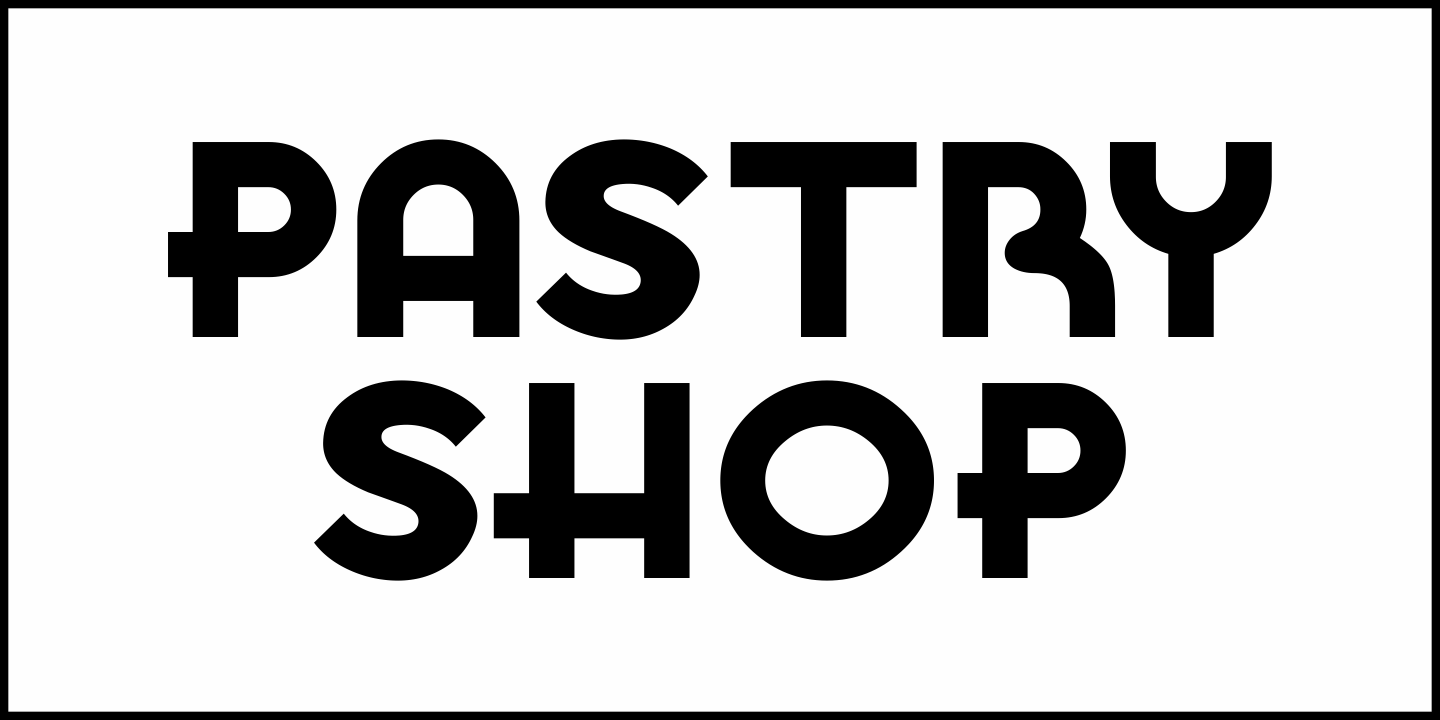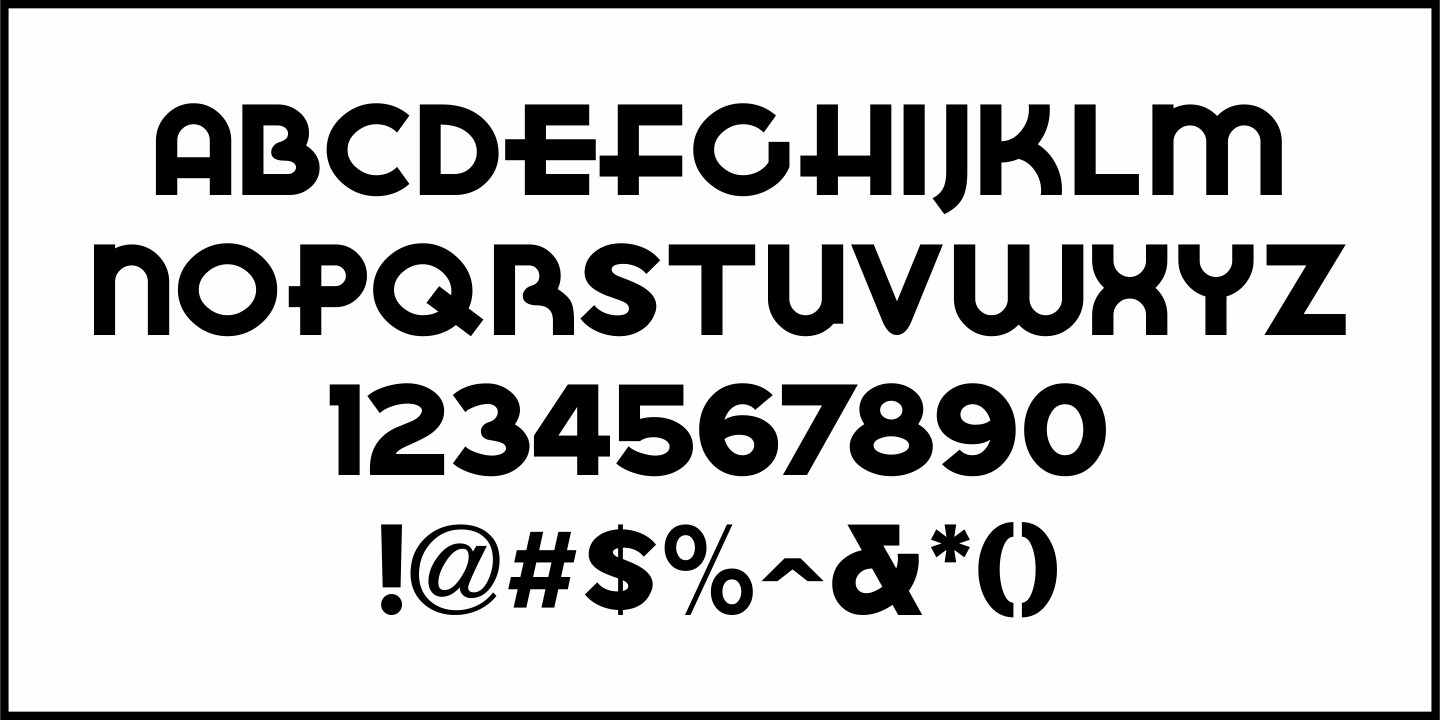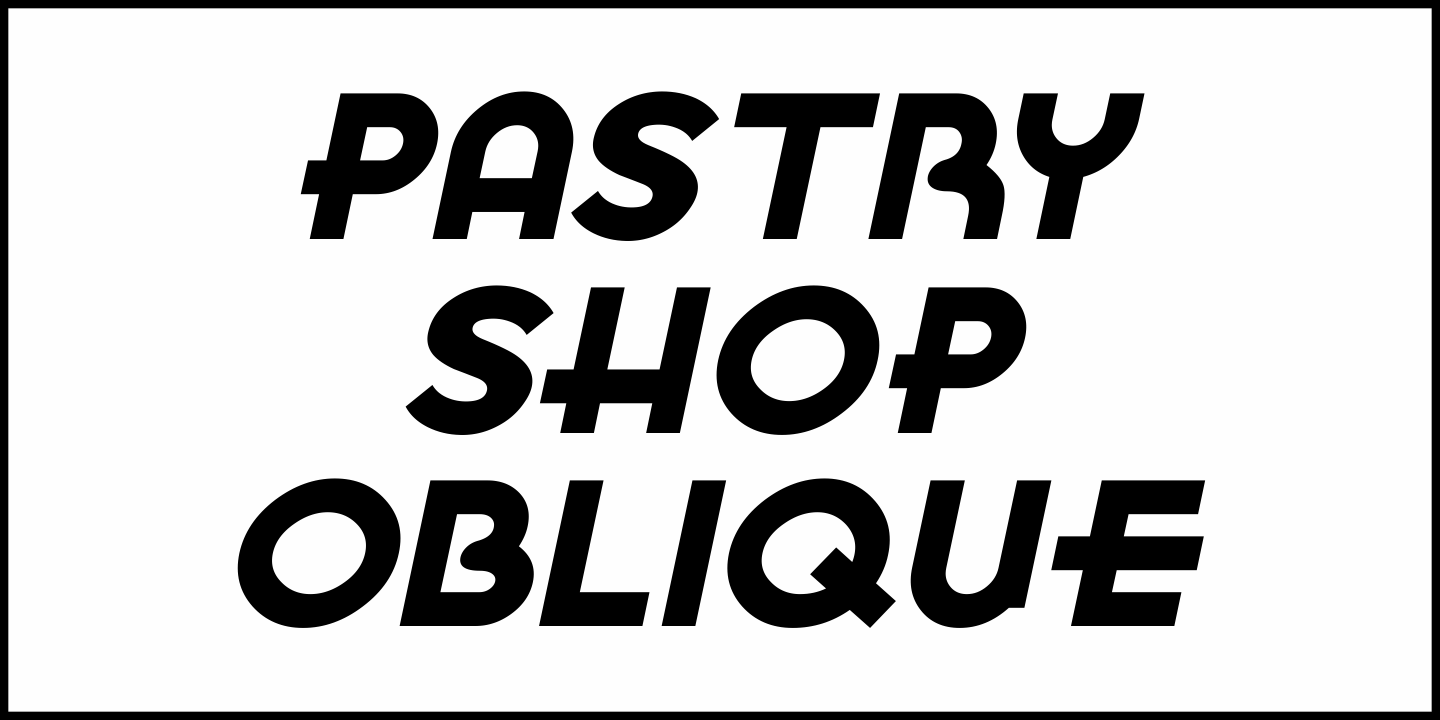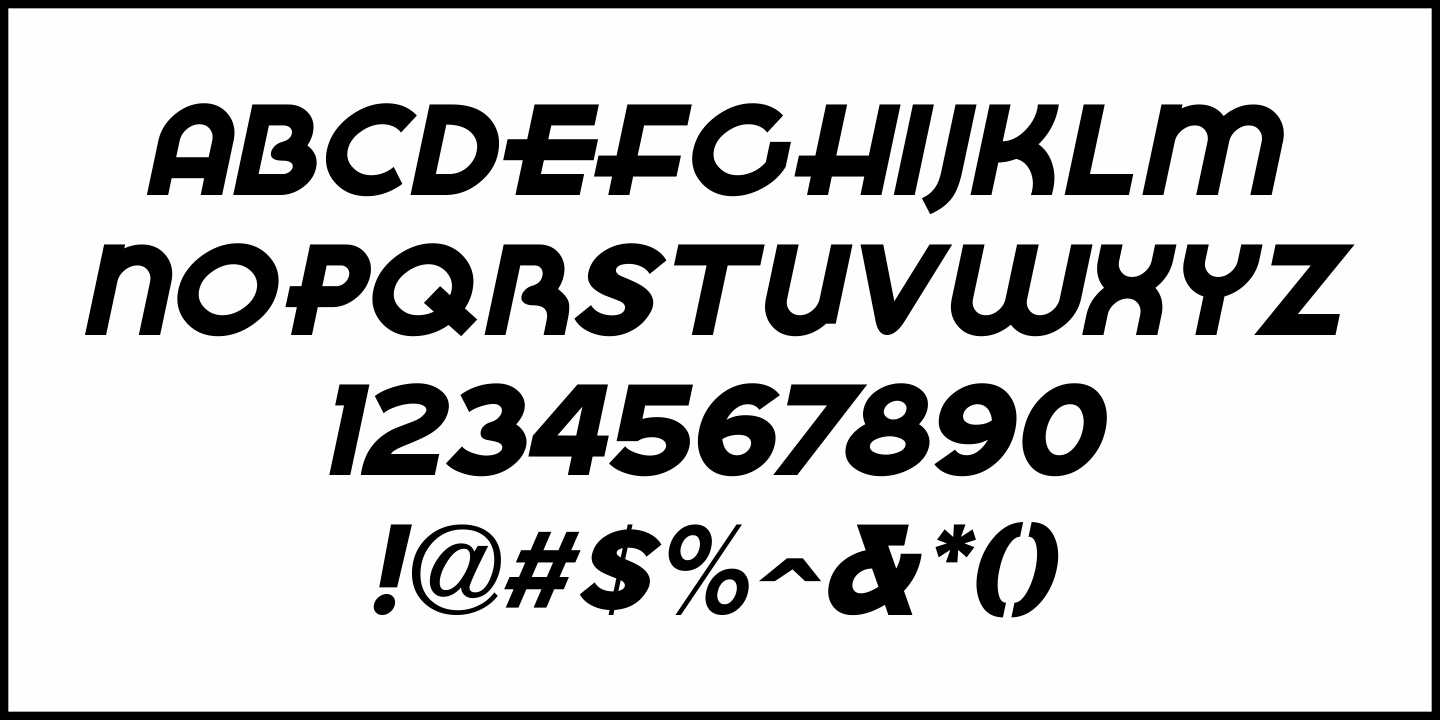
Pastry Shop
In the 1960 edition of Sam Welo's 'Studio Handbook – Letter and Design for Artists and Advertisers” you'll find a bold, hand lettered Art Deco sans serif typeface designed by Welo with a decidedly 1930s-1940s look.
This is now available as Pastry Shop JNL, in both regular and oblique versions.
Pastry Shop JNL Regular by Jeff Levine Fonts